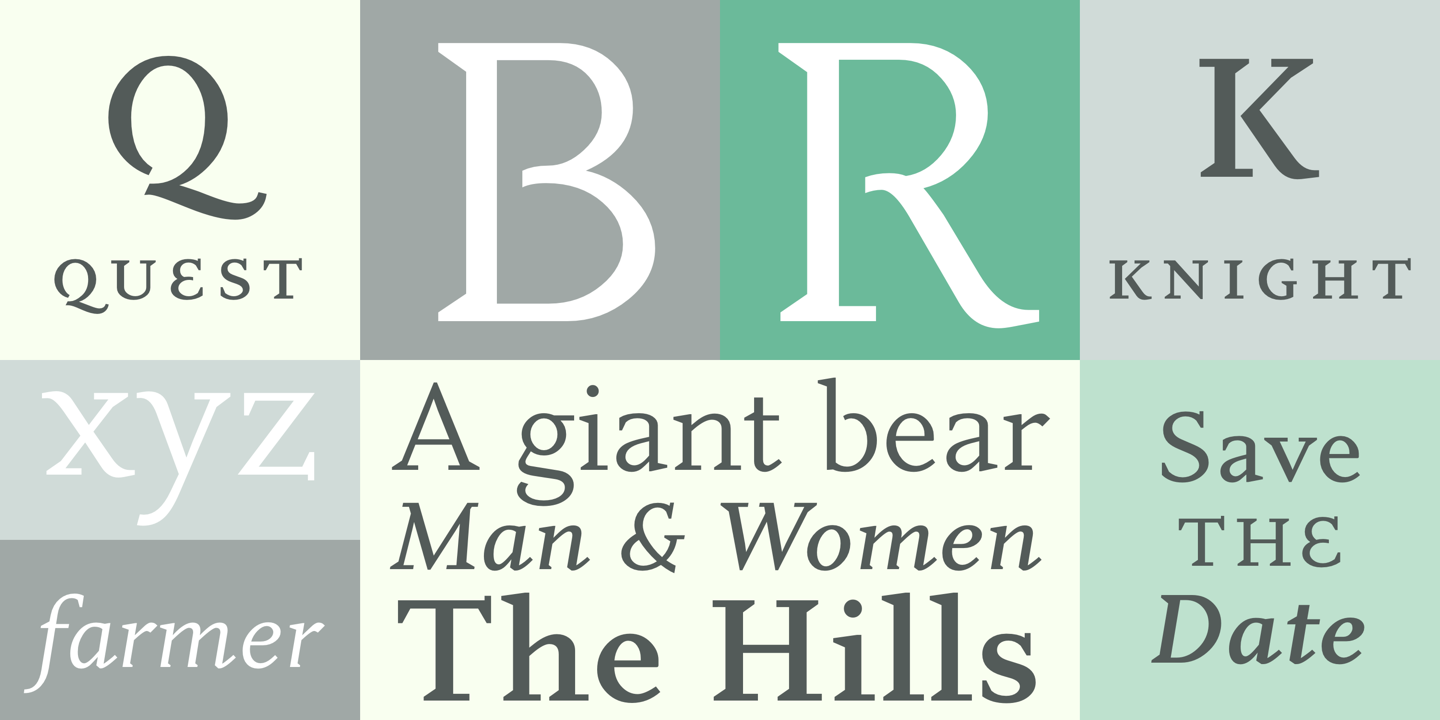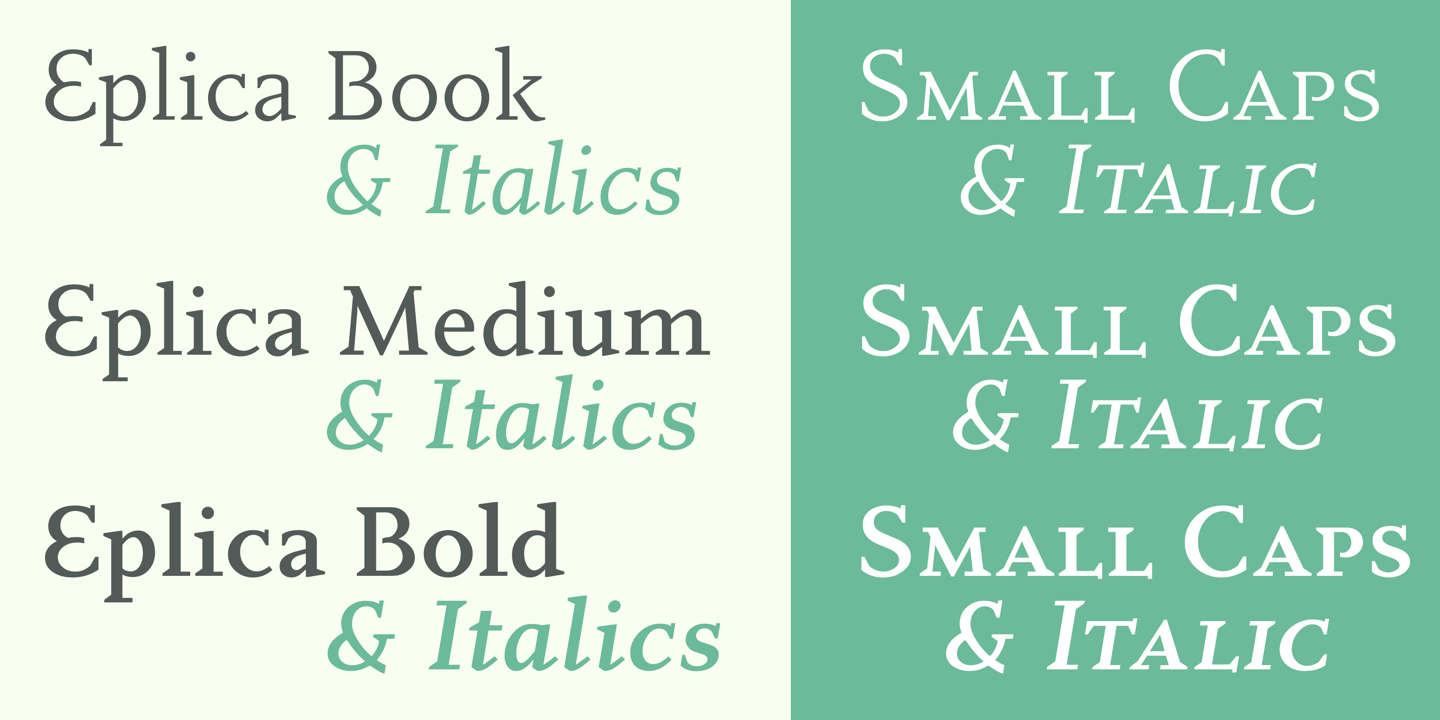
Letraset was formed to exploit the invention of transfer sheet lettering in 1959.
Letraset always ran an adventurous letter design program and from 1964 under the leadership of design director Colin Brignall, built a distinctive library of display typefaces.
The rise of the Apple Macintosh and the wide availability of digital fonts brought about the inevitable decline of transfer lettering. Letraset quickly converted the best of its library into digital format and continues to this day to develop typefaces under the Fontek brand.
Acquired by the Swedish Office Supplies Group Esselte A.B. in 1981 Letraset was subsequently divested to the company’s management team in June 2001.
Today, under the tagline Creative Opportunities, Letraset provides a broad range of digital and traditional design products meeting both professional and non-professional requirements.